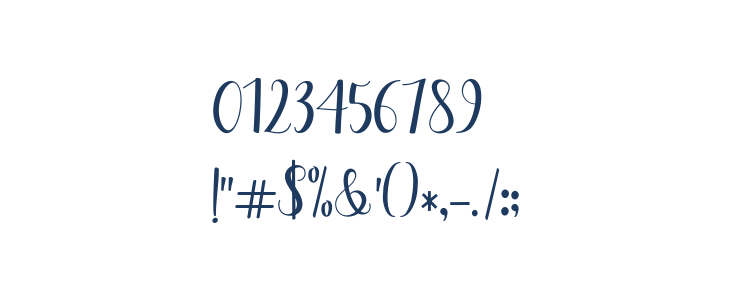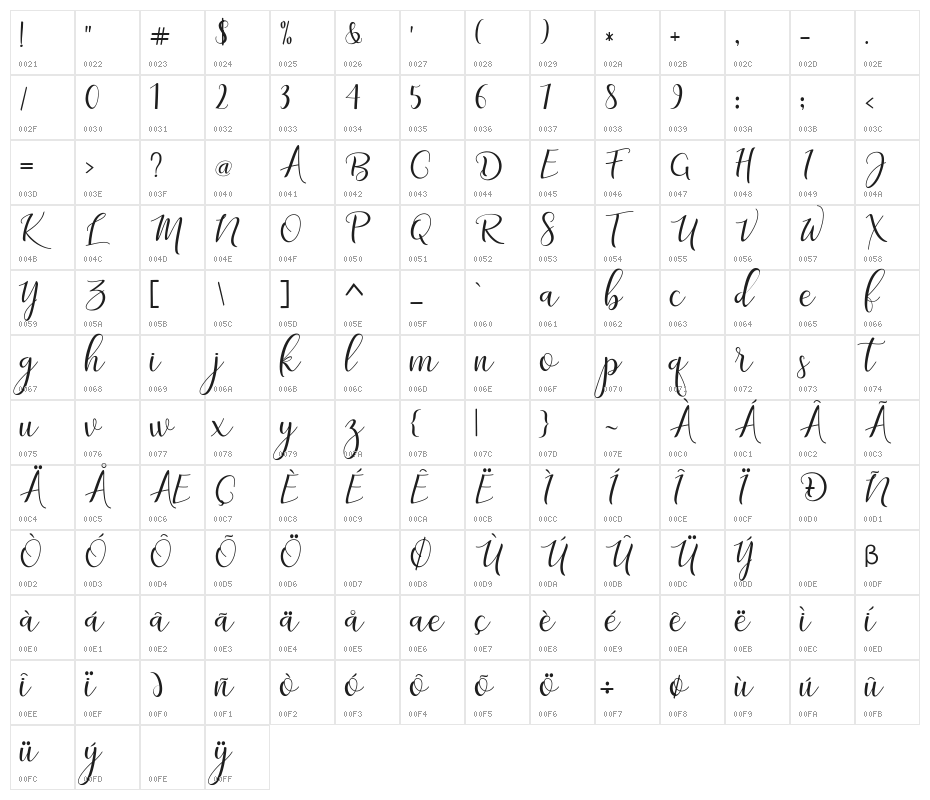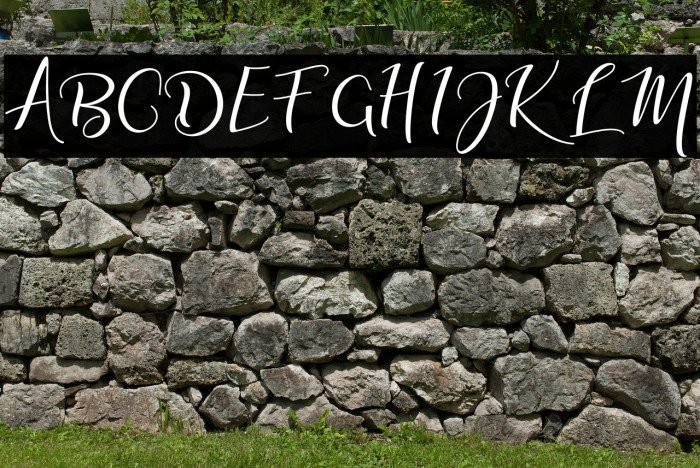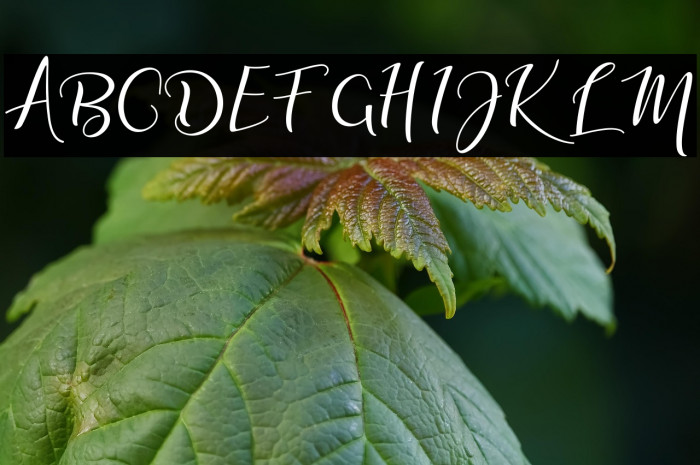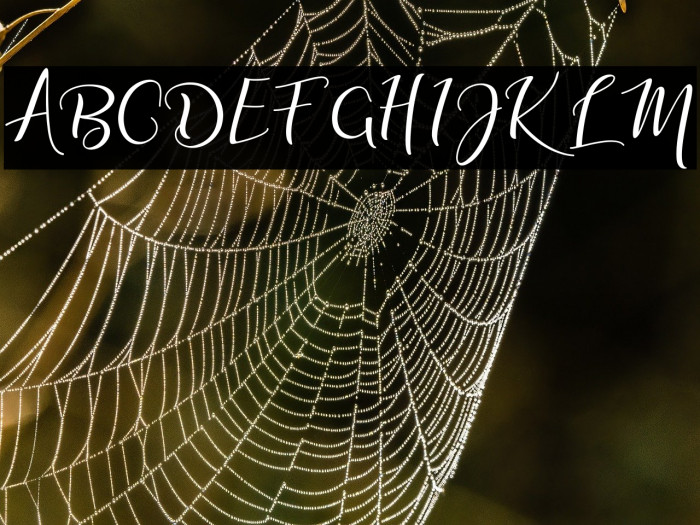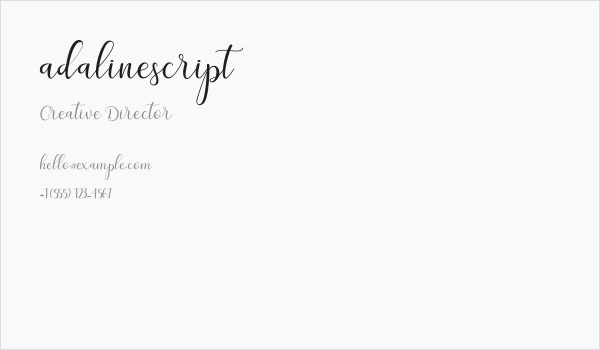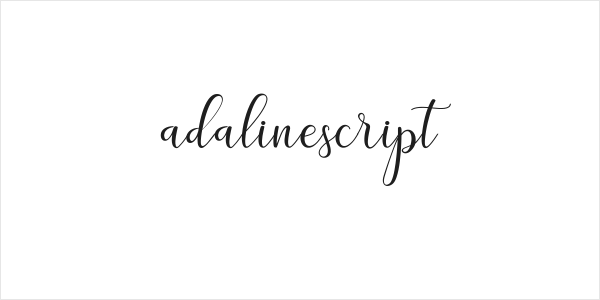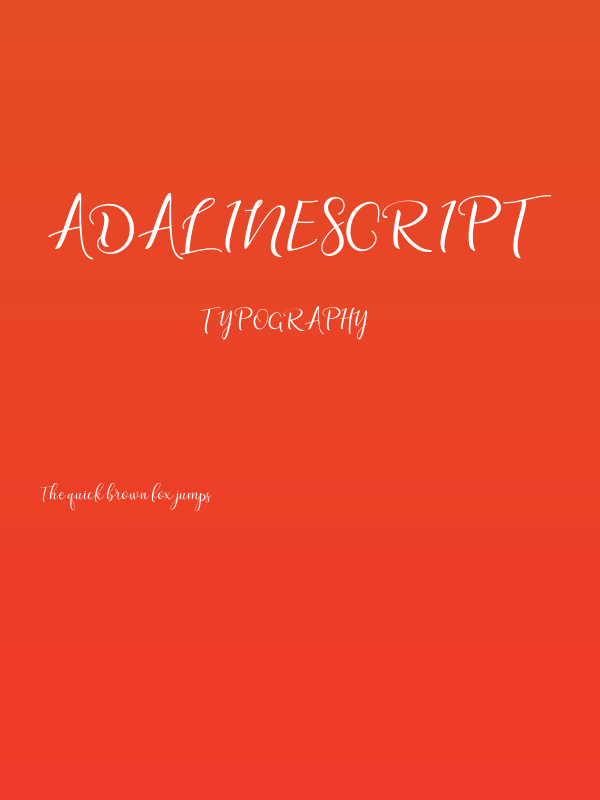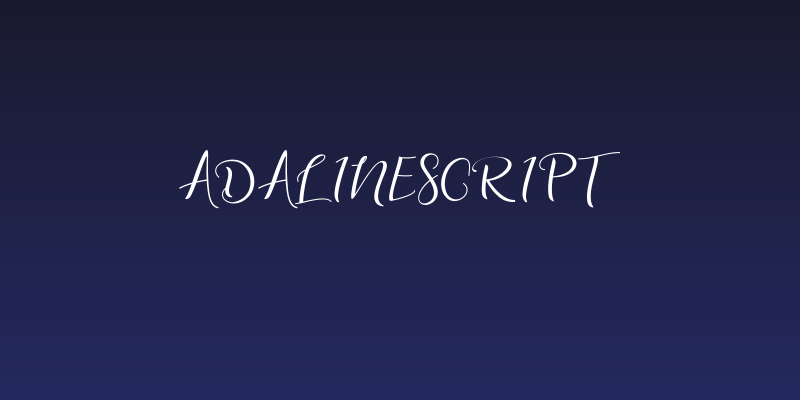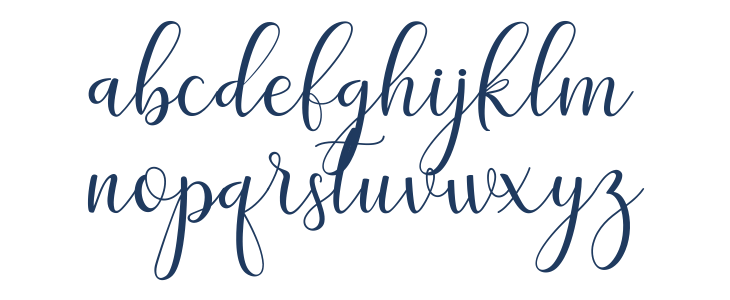
adalinescript Font
adalinescript Description
This elegant script font features flowing, cursive letters with a distinct calligraphic style. The uppercase letters are characterized by their graceful loops and swirls, while the lowercase letters maintain a consistent fluidity, enhancing the font's overall sophistication. The numerals are designed to match the script's aesthetic, offering a seamless integration with the alphabet. Special characters are crafted with the same attention to detail, ensuring versatility in various design contexts. The font's strokes vary in thickness, adding a dynamic contrast that emphasizes its decorative nature.
| Use Case | Logos, Invitations, Decorative text |
| Proposed Projects | Ideal for wedding invitations, elegant branding, greeting cards, and decorative projects. |